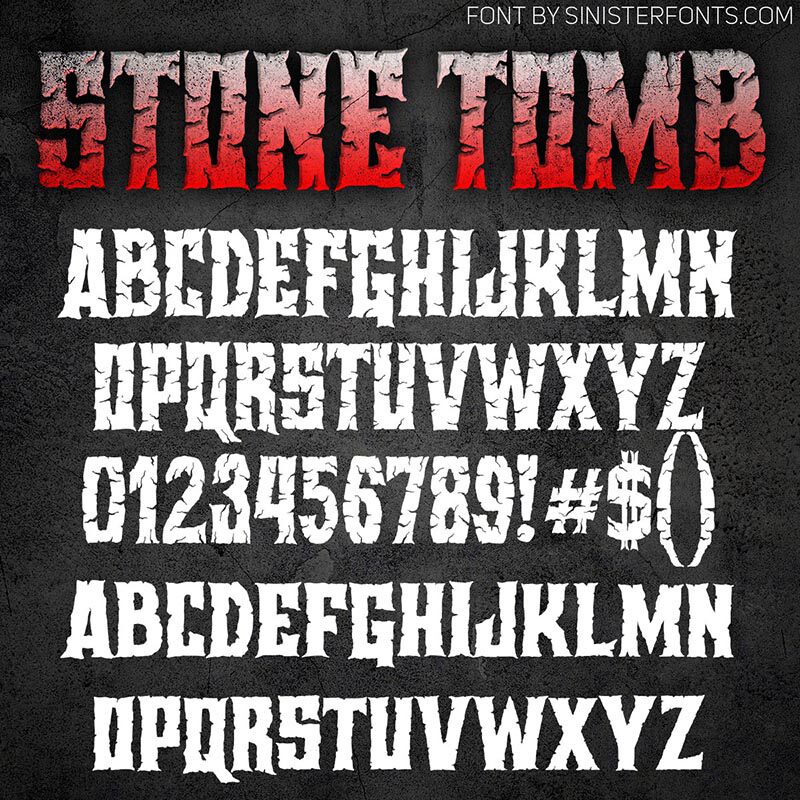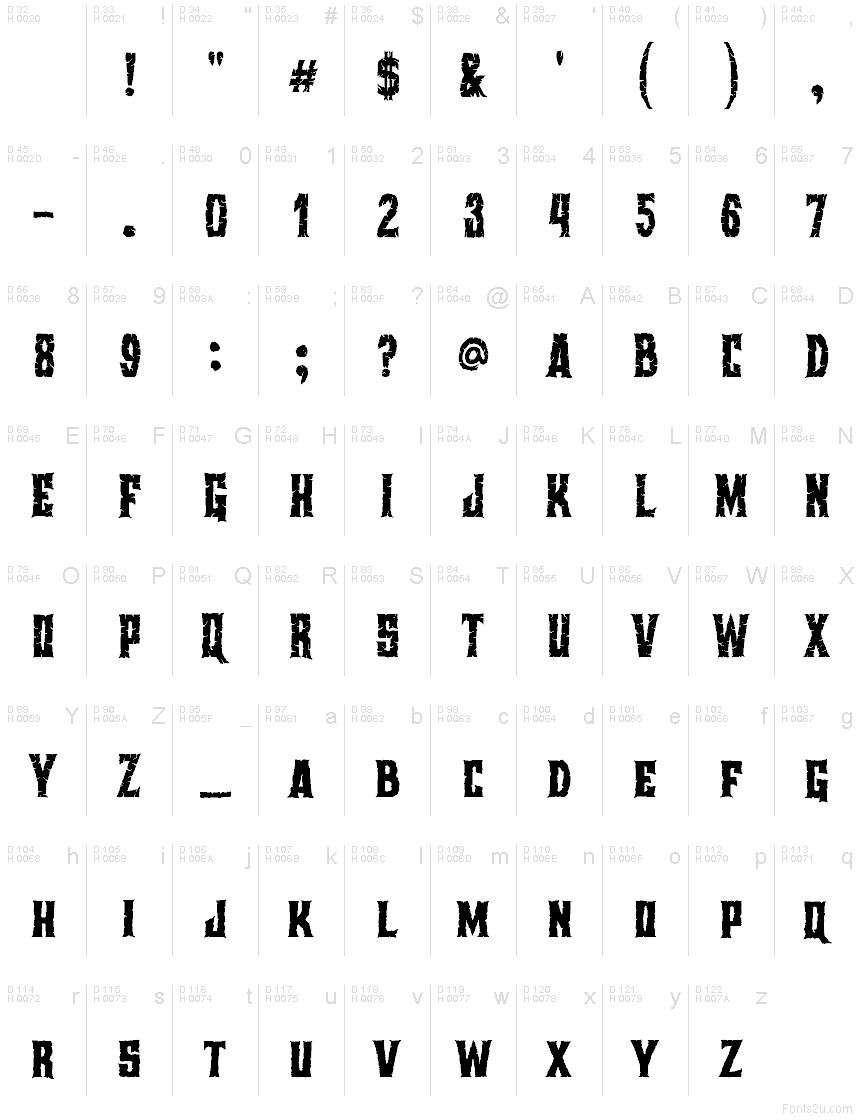
Stone Tomb font by Sinister Fonts is a free Halloween display font that leans into crumbling, gouged letterforms and heavy, slabby silhouettes. Each character looks chipped from a grave marker-ragged edges, dark cavities, and a gritty, ink-soaked texture that reads as loud, eerie, and unmistakable from a distance.
Using Stone Tomb, headlines snap to attention on haunted house posters, spooky party invites, horror movie title cards, escape-room signage, seasonal packaging, and YouTube thumbnails. This free font shines at big sizes with slightly looser tracking to let the torn contours breathe. Pair it with a clean geometric sans for body copy to keep the chills legible.
Stone Tomb Font by Chad Savage
Created 2023, hand-lettered.